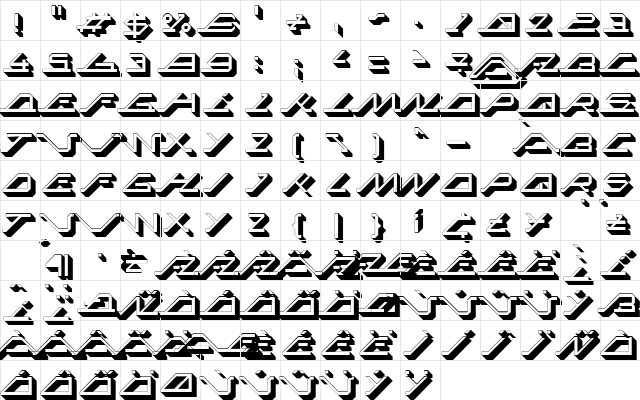
MEGA SLANT LINE 3D
3D · Manuel Viergutz Manuel Viergutz ·
Design Context for MEGA SLANT LINE Typeface
MEGA SLANT LINE is a composed and adaptable typeface that performs quietly and consistently across a wide range of design contexts.
Pro Tip: Use MEGA SLANT LINE in both headline and body roles to test its range before committing to a single application.